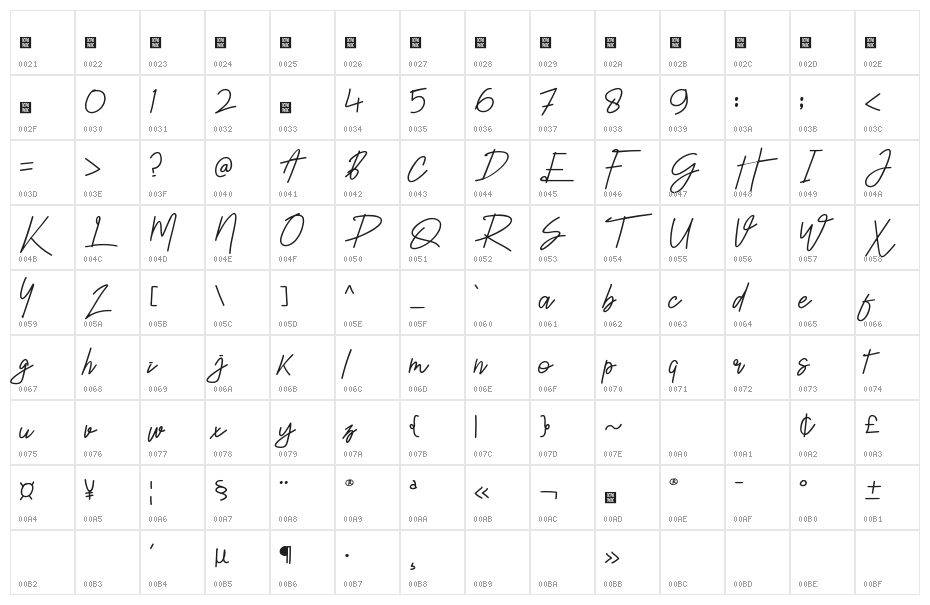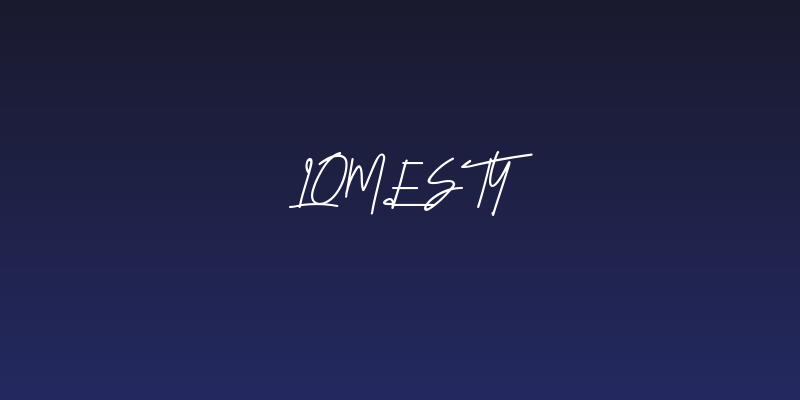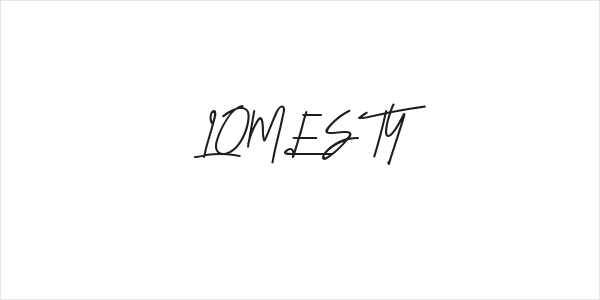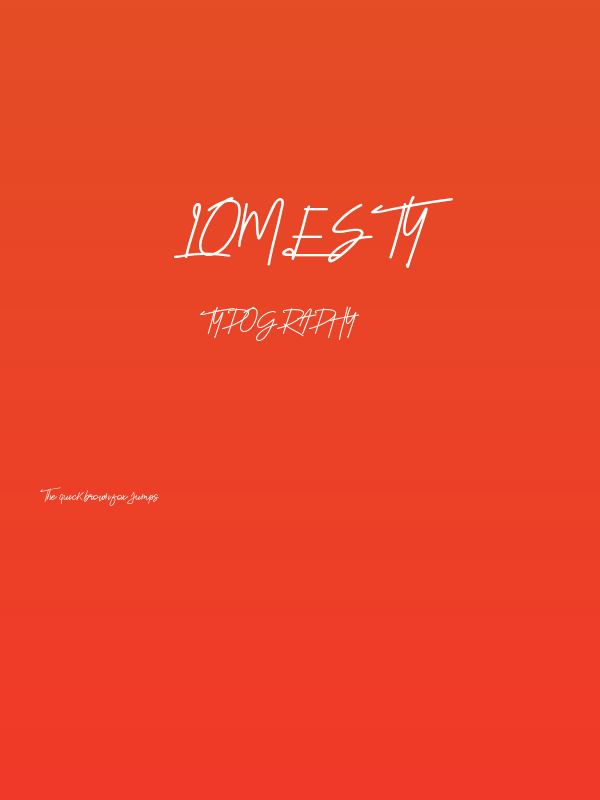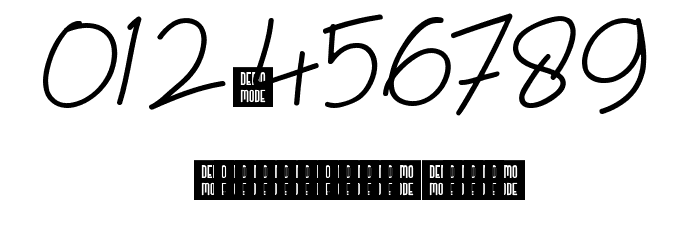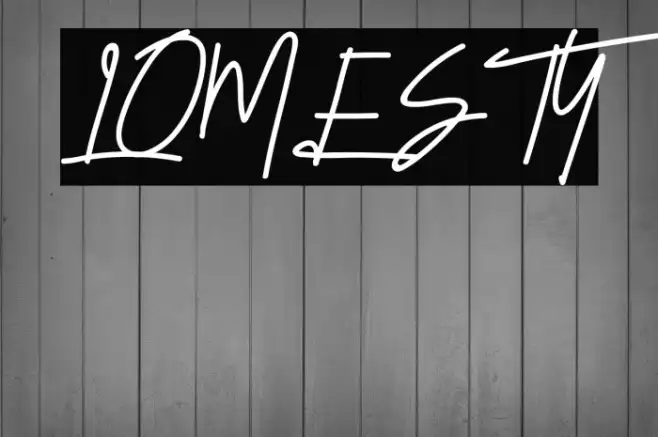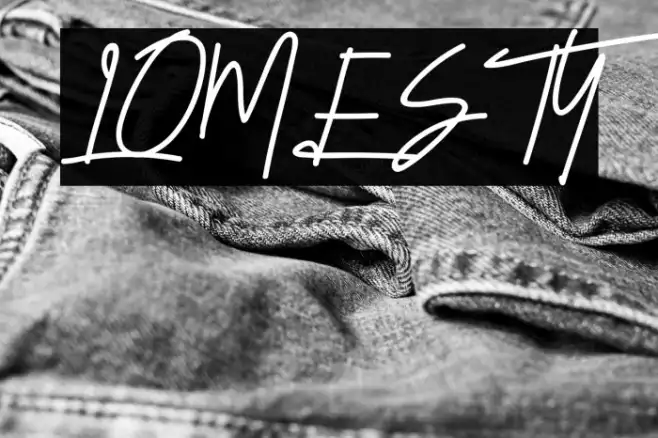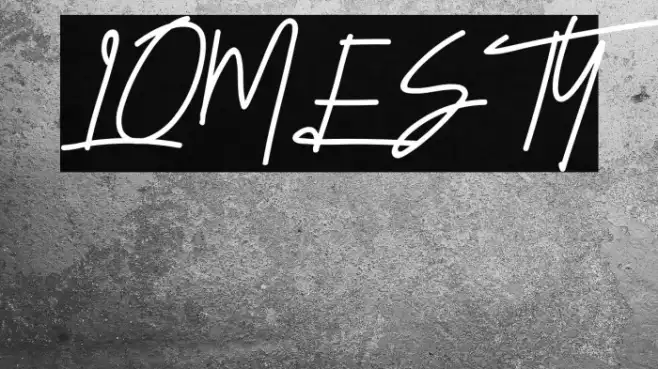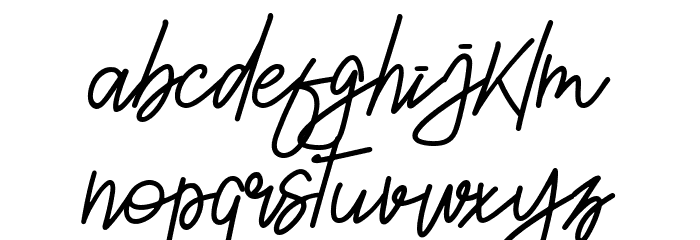
LOMESTY Font
LOMESTY Description
This font exudes a lively and dynamic energy with its handwritten style, characterized by fluid strokes and a natural flow. The letters are slightly slanted, giving it a casual yet sophisticated appearance. The uppercase and lowercase letters maintain a consistent style, with some letters featuring unique loops and curves that add personality. Numbers and special characters are seamlessly integrated, maintaining the overall aesthetic. The font's playful yet elegant nature makes it versatile for various design applications.